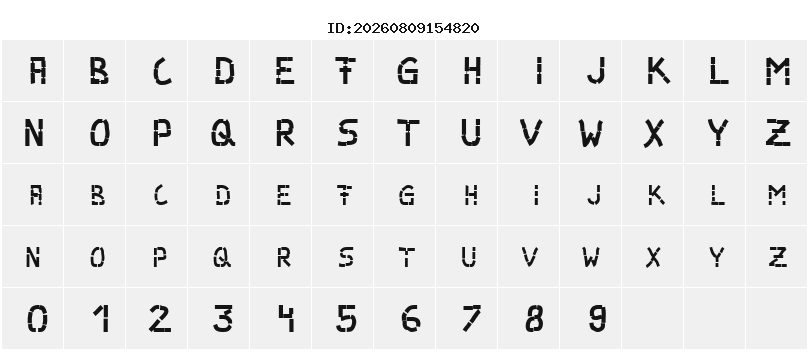
Parts Preview
About Parts.ttf
Parts.ttf is a modern, elegant sans-serif font designed for ultimate readability and visual harmony. Perfect for branding, headlines, web design, and print materials.